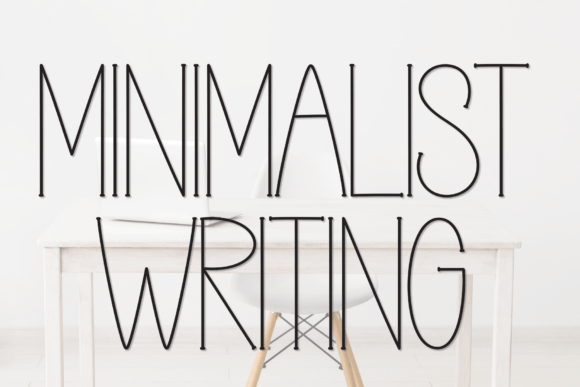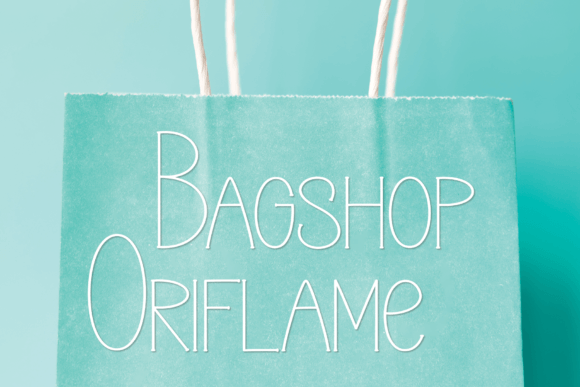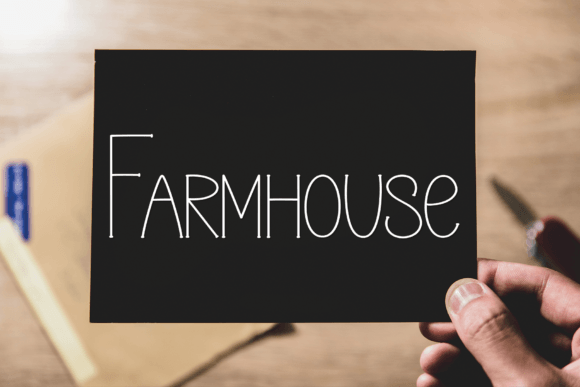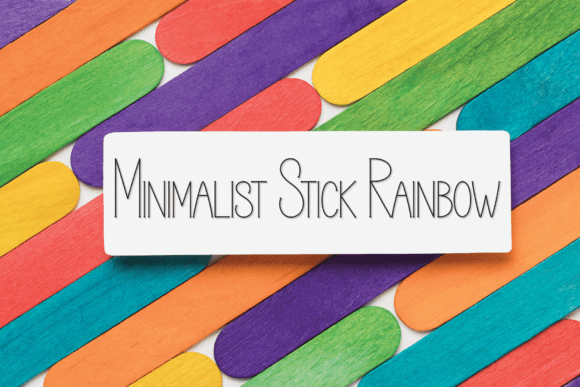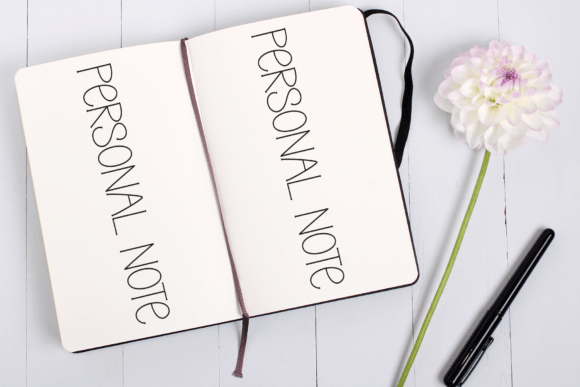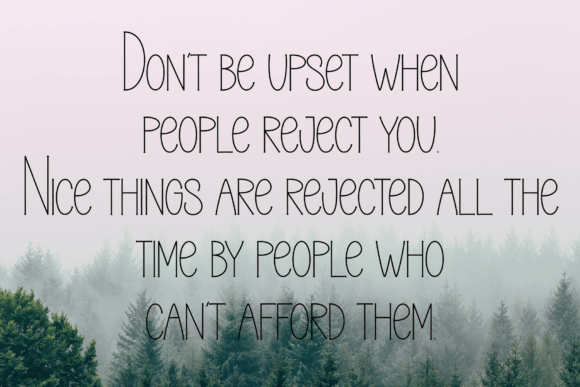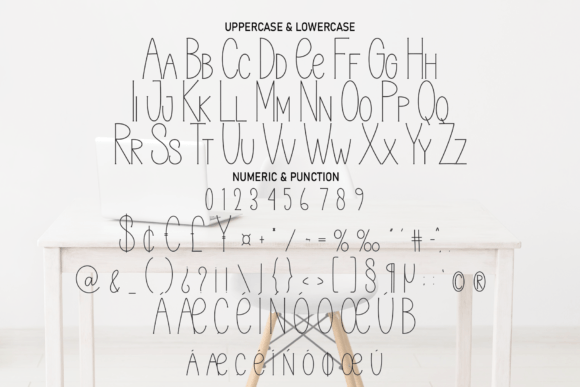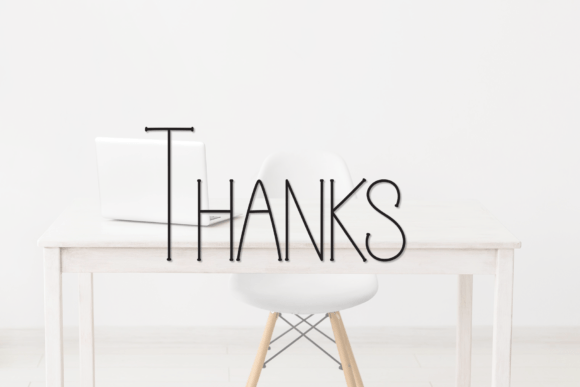
Minimalist Writing Font
A Clean and Elegant Handwritten Typeface
Minimalist Writing is a modern handwritten font designed to bring sophistication and clarity to your creative projects. With thin, neat lines and a balanced flow, this font feels fresh, elegant, and refined. Whether you’re designing greeting cards, digital graphics, or branding materials, Minimalist Writing adds a clean, professional touch that elevates any design.
Minimalist Writing is a font you’ll love using again and again. It’s perfect for wedding invitations, save-the-date cards, and thank you notes. The simple script adds a personal, timeless feel that makes any event special.
For branding, this font shines on logos, business cards, and product packaging. Its clean strokes create a modern look that feels premium and approachable.
This font also works beautifully on social media graphics, blog headers, and presentations. The thin lettering keeps your visuals looking crisp and sophisticated.
In crafting, Minimalist Writing adds a delicate touch to labels, stickers, and handmade gifts. The understated style helps every project look thoughtful and polished.
Despite its slim details, Minimalist Writing remains clear and easy to read in any size. Smooth connections and even spacing ensure your text stays tidy whether it’s used in headlines or captions.
For a clean, modern layout, pair Minimalist Writing with a bold sans-serif font. Use Minimalist Writing for titles and highlights, and the sans-serif for supporting content. This pairing creates balance while showcasing the script’s elegance.
To make Minimalist Writing stand out, use light backgrounds and neutral color palettes. Soft shades like cream, blush, and pale gray allow the font’s thin lines to shine without distraction.
When designing invitations or product packaging, consider adding minimal icons or subtle textures that complement the font’s refined feel.
On social media, embrace white space to keep your text clear and your posts visually appealing.
Think about the mood you want to create. Minimalist Writing is perfect for designs that should feel modern, clean, and timeless.
Minimalist Writing isn’t just another script font—it’s a creative asset that makes every project feel elegant and intentional. From professional branding to personal crafts, this font adapts seamlessly and adds a polished finish to your work.